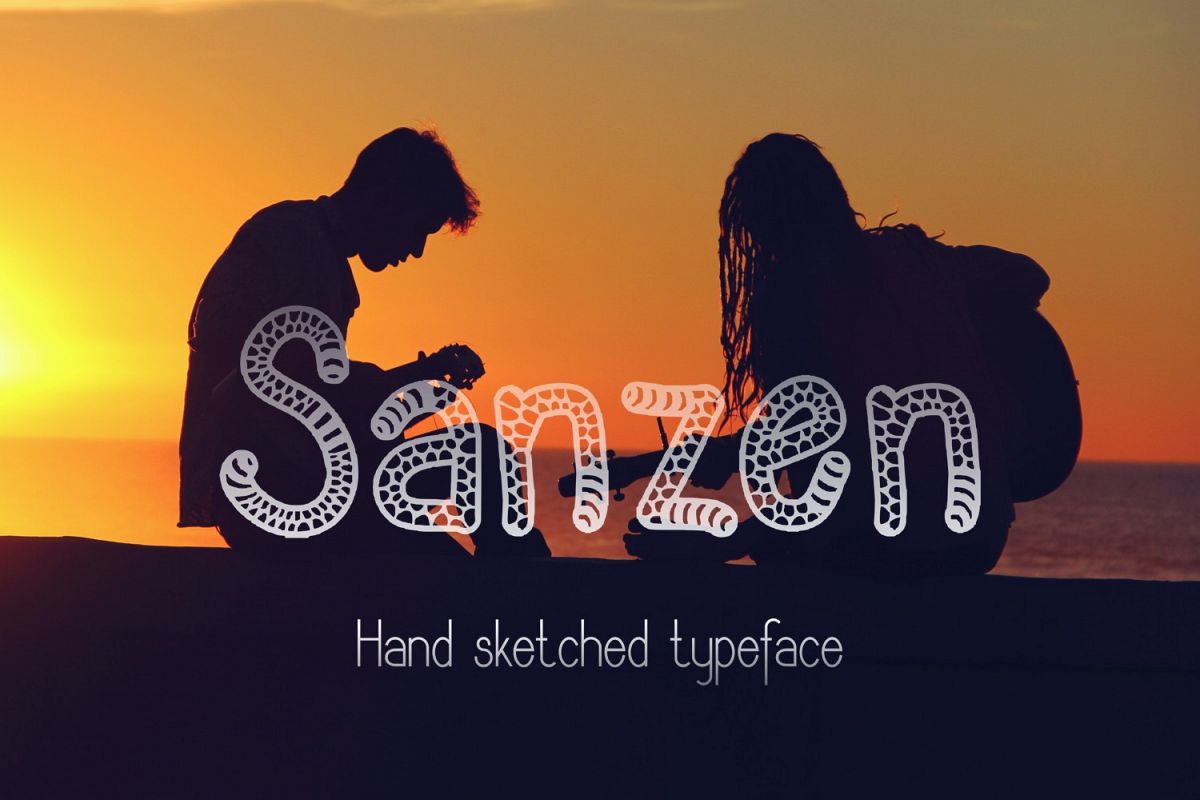
Sanzen Font
Introducing Sanzen hand drawn decorative font.
Sanzen is perfect for branding projects, homeware designs, product packaging, stationeries and scrapbooking - or simply as a text overlay to any background image.